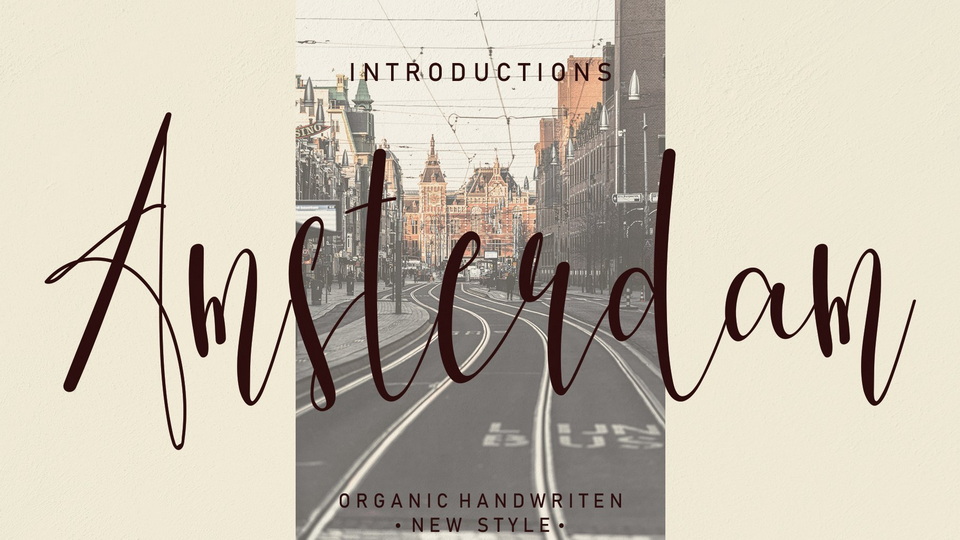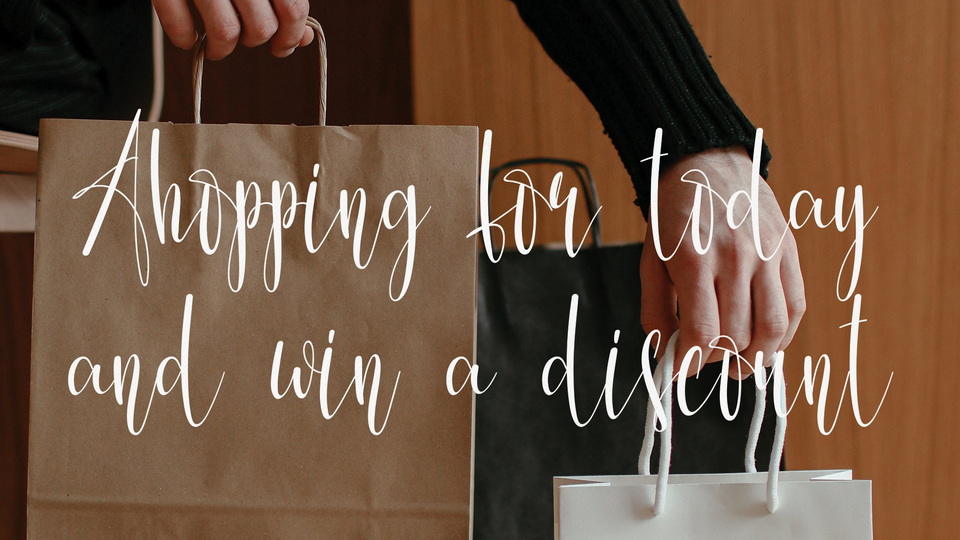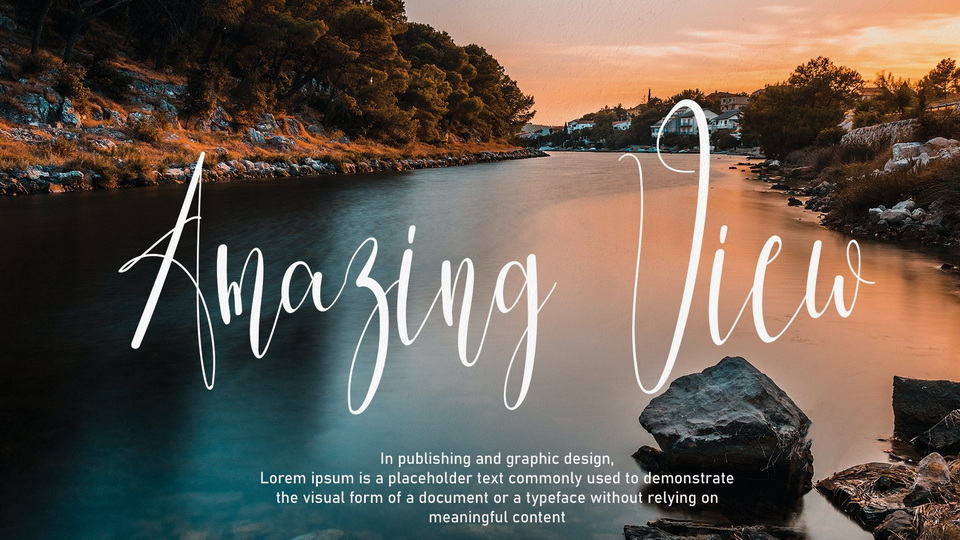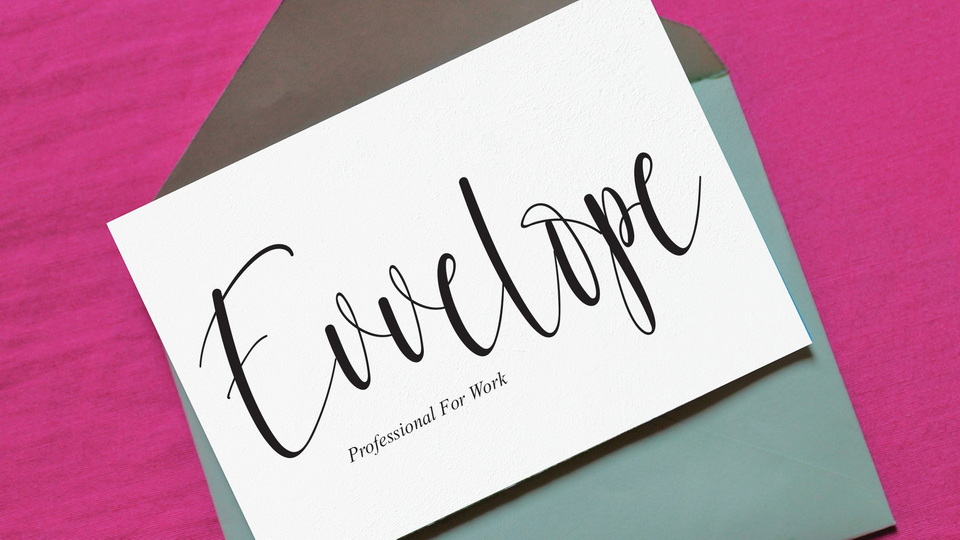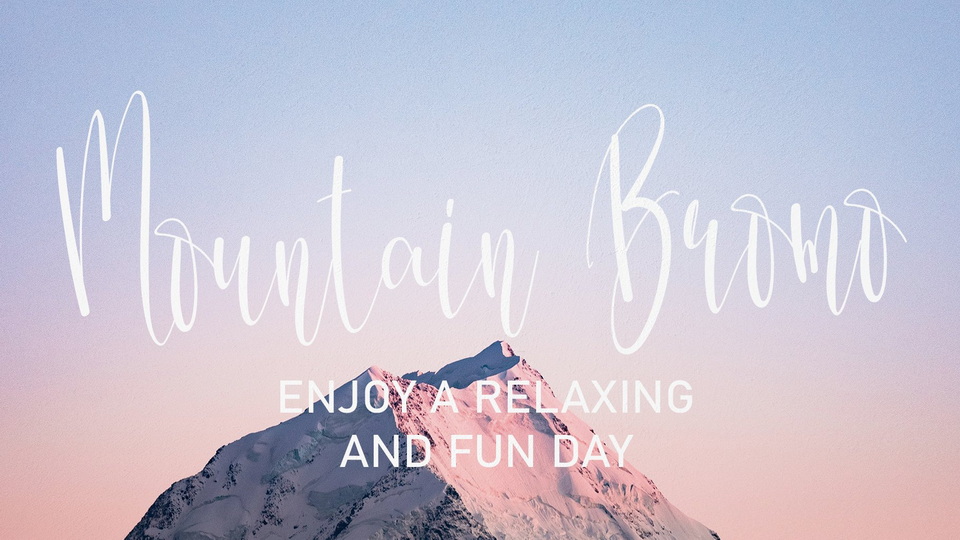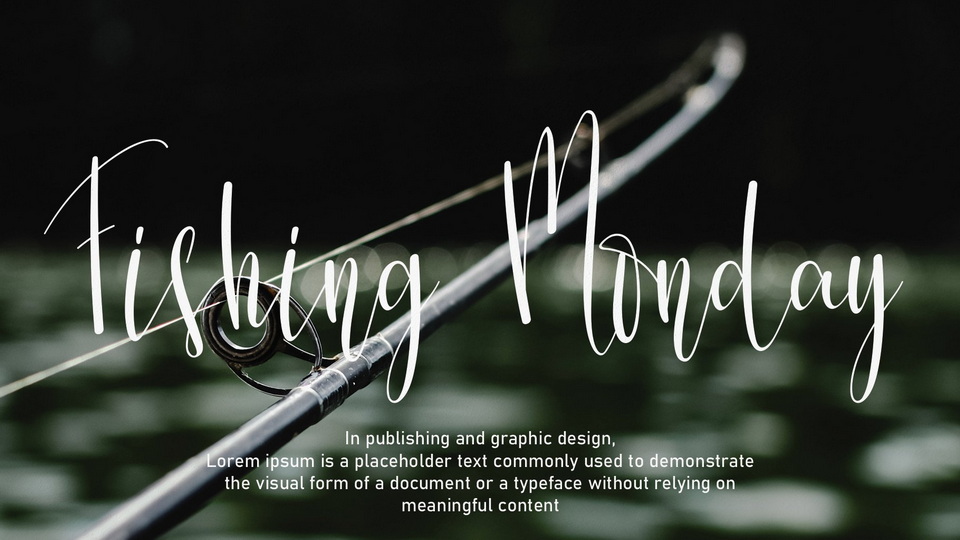
Amsterdam is a stylish script font featuring dynamic flow. This font is perfect for your creative ideas, both formal and informal.
Amsterdam font is perfect for wall displays, wedding invitations, social media post logos, advertisements, product packaging, labels, photography, watermarks, invitations and any project that requires taste handwriting.